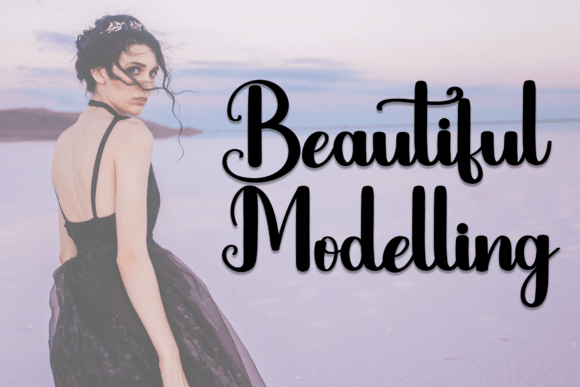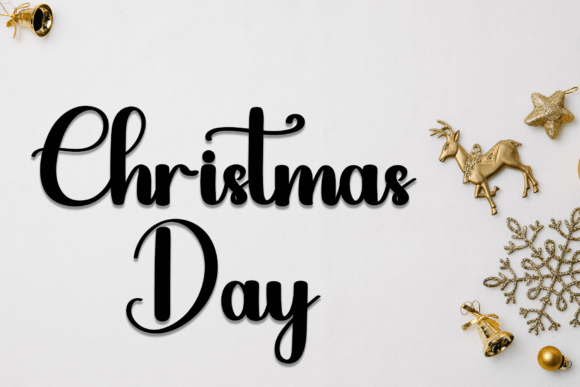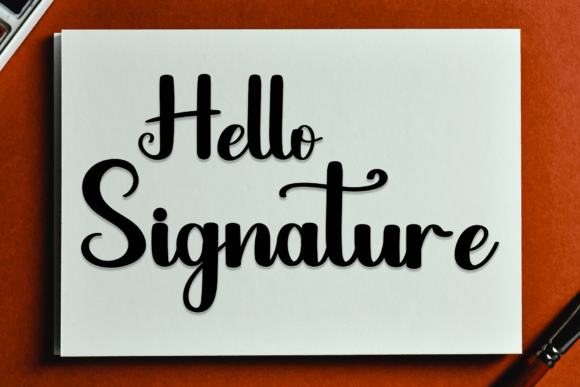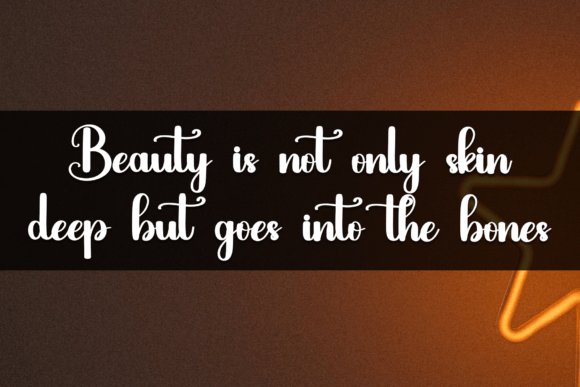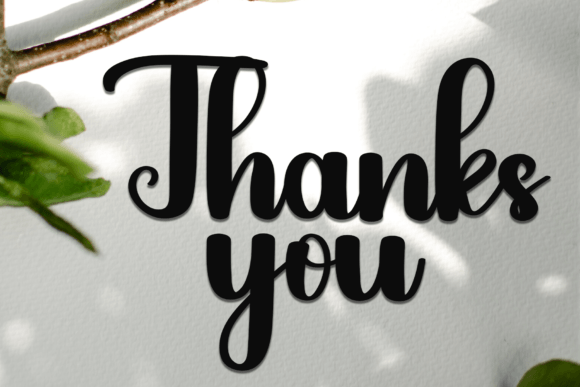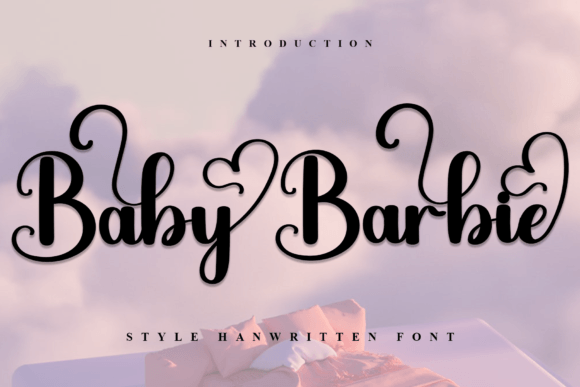
Baby Barbie Font: A Festive and Whimsical Typeface for Holiday Designs
Are you looking for a font that embodies the magic and wonder of the holiday season? Look no further than the Baby Barbie Font, a decorative and merry typeface that’s perfect for adding a touch of enchantment to your designs. With its whimsical flair and festive elements, this font is sure to bring a cheerful and nostalgic ambiance to your words.
What is Baby Barbie Font?
Baby Barbie Font is a specially designed typeface that captures the spirit of the holiday season. Its decorative elements and whimsical flair make it perfect for holiday-themed projects, greeting cards, gift tags, and more. This font is designed to add a touch of magic to your designs, making it ideal for designers and crafters who want to create unique and eye-catching projects.
Key Features of Baby Barbie Font
- Decorative Elements: Baby Barbie Font features decorative elements that add a touch of festivity to your designs. From holly leaves to snowflakes, this font has everything you need to create a holiday-themed project.
- Whimsical Flair: This font has a whimsical flair that’s perfect for adding a touch of magic to your designs. Its playful and curly lines make it ideal for creating projects that are fun and festive.
- PUA Encoded: Baby Barbie Font is PUA encoded, which means you can access all of the amazing glyphs and ligatures with ease. This makes it easy to use and customize the font to suit your needs.
Uses for Baby Barbie Font
Baby Barbie Font is perfect for a variety of holiday-themed projects, including:
- Greeting Cards: Create festive and fun greeting cards for friends and family using Baby Barbie Font.
- Gift Tags: Add a touch of magic to your gift tags with this whimsical font.
- Holiday-Themed Projects: From Christmas decorations to Halloween-themed projects, Baby Barbie Font is perfect for adding a touch of festivity to your designs.
Why Choose Baby Barbie Font?
There are many reasons why Baby Barbie Font is the perfect choice for your holiday designs. Here are just a few:
- Unique and Eye-Catching: This font is sure to make your designs stand out with its unique and eye-catching style.
- Easy to Use: Baby Barbie Font is PUA encoded, making it easy to access all of the amazing glyphs and ligatures.
- Festive and Fun: This font embodies the spirit of the holiday season, making it perfect for creating festive and fun designs.
Tips for Using Baby Barbie Font
Here are a few tips for using Baby Barbie Font in your designs:
- Experiment with Different Sizes: Try out different font sizes to see what works best for your design.
- Combine with Other Fonts: Combine Baby Barbie Font with other fonts to create a unique and eye-catching design.
- Use Decorative Elements: Take advantage of the decorative elements in Baby Barbie Font to add a touch of festivity to your designs.
Baby Barbie Font is a festive and merry typeface that’s perfect for adding a touch of enchantment to your holiday designs. With its decorative elements and whimsical flair, this font is sure to bring a cheerful and nostalgic ambiance to your words. Whether you’re a designer or crafter, Baby Barbie Font is the perfect choice for creating unique and eye-catching holiday-themed projects.